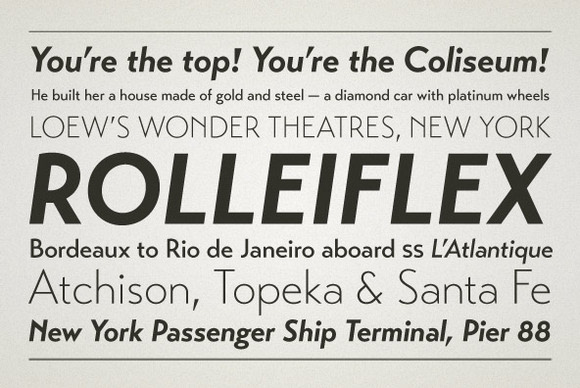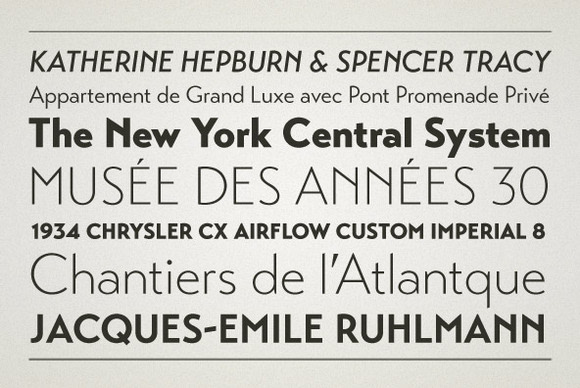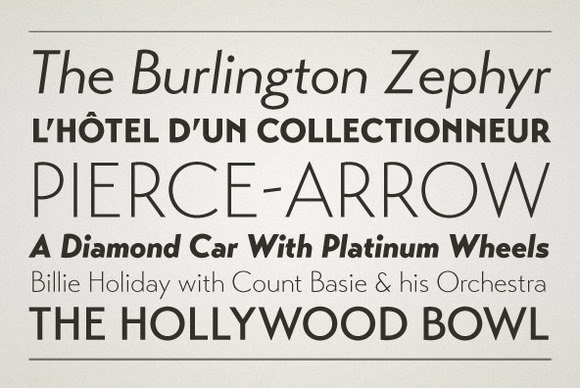
Transat is a geometric sans serif typeface, with caps inspired by Art Deco signage — found inside the "Gare Maritime" (literally "sea station") ocean liner terminals in both Le Havre and Cherbourg, France, in the early 1930s. The name “Transat” is the common shortening of “Compagnie Générale Transatlantique,” the company that operated majestic ocean liners like the SS Normandie out of Le Havre from 1862–1974.
The Transat family includes 5 weights plus including optically-corrected obliques (10 fonts total). Transat includes many OpenType features, such as ligatures (ff/ft/fft), small capitals, case sensitive forms, stylistic alternates, arbitrary fractions, and a full compliment of proportional, tabular, and oldstyle figures. In all, the Transat family contains nearly 700 glyphs per font.
Transat also has a more rational, text-friendly companion font, "Transat Text".
The Transat family includes 5 weights plus including optically-corrected obliques (10 fonts total). Transat includes many OpenType features, such as ligatures (ff/ft/fft), small capitals, case sensitive forms, stylistic alternates, arbitrary fractions, and a full compliment of proportional, tabular, and oldstyle figures. In all, the Transat family contains nearly 700 glyphs per font.
Transat also has a more rational, text-friendly companion font, "Transat Text".